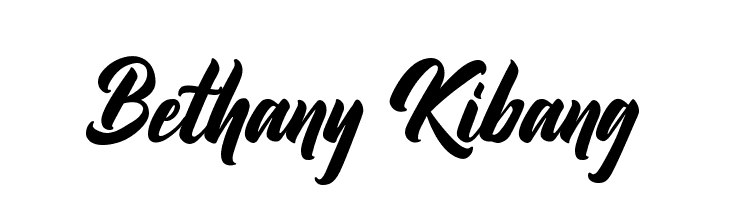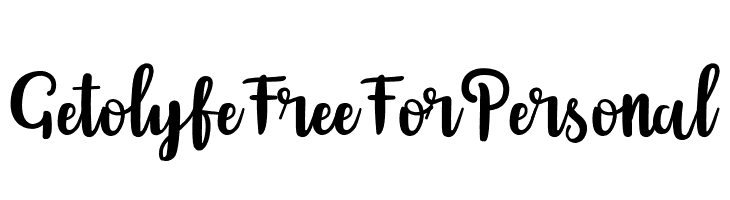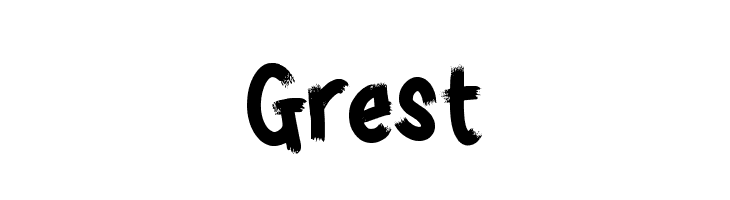
A bold, playful script font with a handwritten feel.
A dynamic and flowing script font with elegant, cursive strokes.
A bold, expressive script font with flowing, cursive letterforms.
A bold, geometric font with a three-dimensional shadow effect.
A casual and elegant handwritten font with fluid, connected letterforms.
A bold, brush-style font with an energetic and artistic flair.
A bold, decorative font with a three-dimensional effect and geometric structure.
A lively, handwritten font with flowing cursive letterforms.
A tall, narrow font with thin strokes and a modern, sophisticated style.
An elegant script font with flowing, cursive letters and intricate swashes.